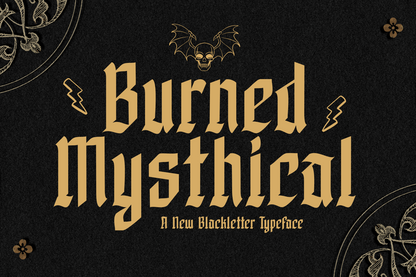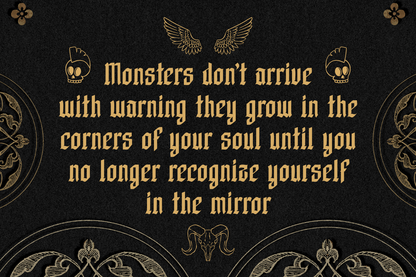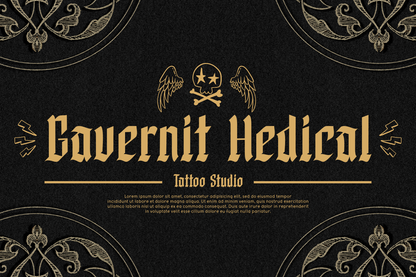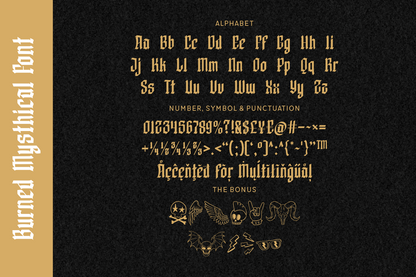
Burned Mysthical is a fierce and fiery blackletter font with mystical energy and gothic edge. Its jagged forms and medieval inspiration make it perfect for occult branding, witchy merchandise, band logos, and dark fantasy titles. The font evokes a rebellious magic, ready to set your design ablaze.